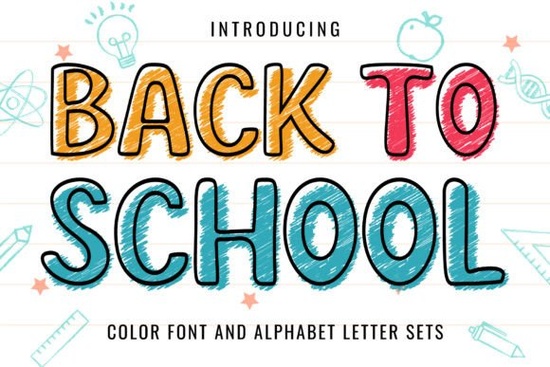
Looking for a font that brings energy and personality to your school-themed designs? The Back to School Font is a vibrant, playful color font perfect for projects that need a casual, eye-catching vibe. Whether you're designing t-shirts, book covers, or greeting cards, this font adds instant charm with its bold, colorful style.
What makes this font stand out?
Unlike plain black-and-white fonts, the Back to School Font includes built-in colors and layered elements no extra work needed. Each letter is already styled with fun, coordinated hues, so you can create professional-looking designs quickly. It’s ideal for fall projects, back-to-school promotions, classroom decor, and creative crafts.
You’ll find it especially useful if you’re a small business owner, print-on-demand seller, or hobbyist working on handmade gifts. Its lively appearance works well across digital and physical formats from social media posts to stickers and menus.
Where can you use it?
- T-shirt designs – Perfect for student apparel or teacher gifts
- Book covers and reading logs – Great for children’s books or school reading challenges
- Greeting cards – Ideal for birthday or welcome-back messages
- Restaurant or café menus – Adds a cheerful touch to seasonal offerings
- Blog headers and social media graphics – Helps your content stand out during the school year
If you're new to using color fonts, the Back to School Font is a great place to start. It’s beginner-friendly and gives immediate results without needing advanced skills.
Why designers love it
Many creators appreciate how it saves time while still delivering a unique look. Instead of spending hours layering colors and effects, you get a ready-to-use design element that feels hand-crafted but is effortless to apply.
It also works well in mixed-media projects. Try pairing it with simple line drawings, chalkboard textures, or school supply illustrations for a nostalgic, authentic feel.
Final thoughts
The Back to School Font isn’t just another decorative typeface it’s a practical tool for anyone creating seasonal or educational content. Its combination of color, readability, and ease of use makes it a smart choice for everyday design tasks.
Whether you’re launching a new product line, preparing for the fall season, or just want to add some fun to your next project, this font delivers consistent quality and style.